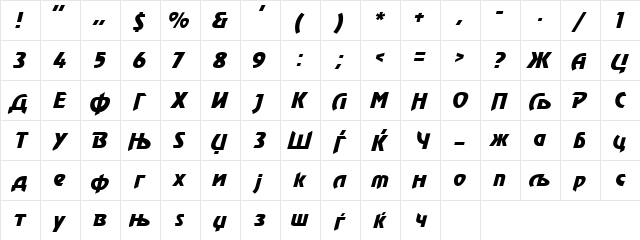
C_Renfrew Italic
Design Context for C_Renfrew Typeface
C_Renfrew offers clean, dependable letterforms without strong stylistic allegiance, making it a practical choice for designers who need flexibility. Its italic angle brings a sense of urgency and motion to the letterforms.
Pro Tip: Use C_Renfrew for emphasis, pull quotes, and subheadings where its slanted energy can add rhythm to the layout.